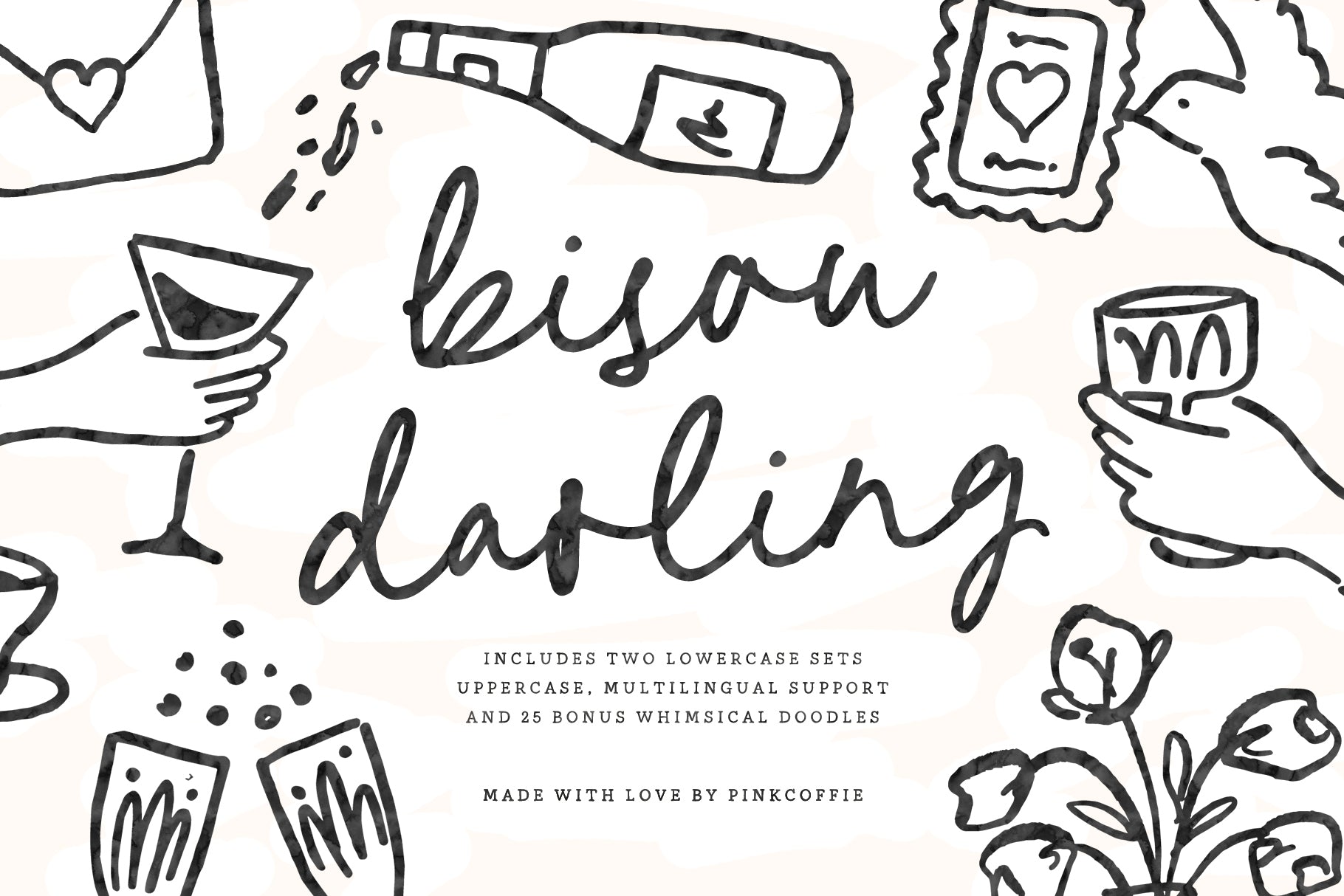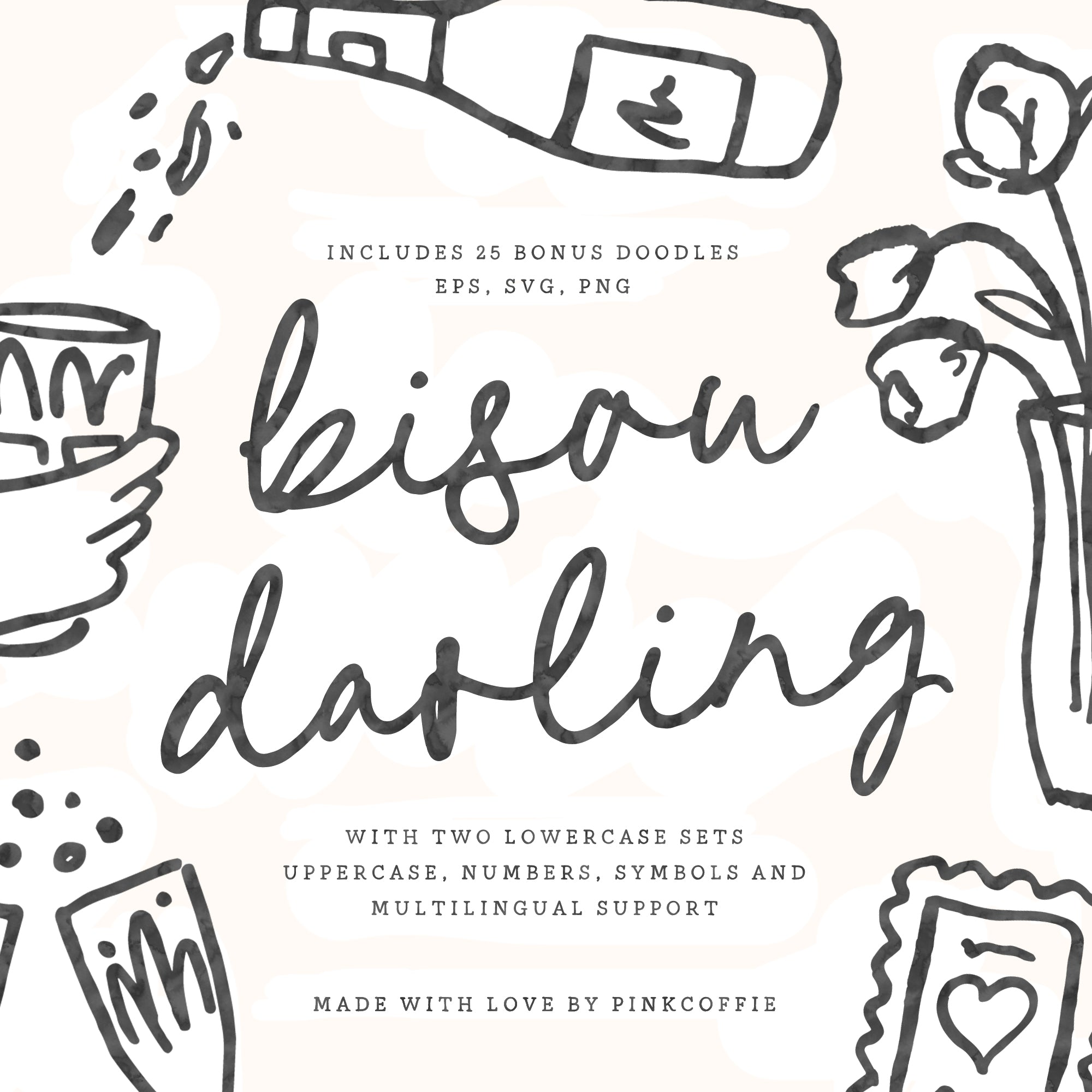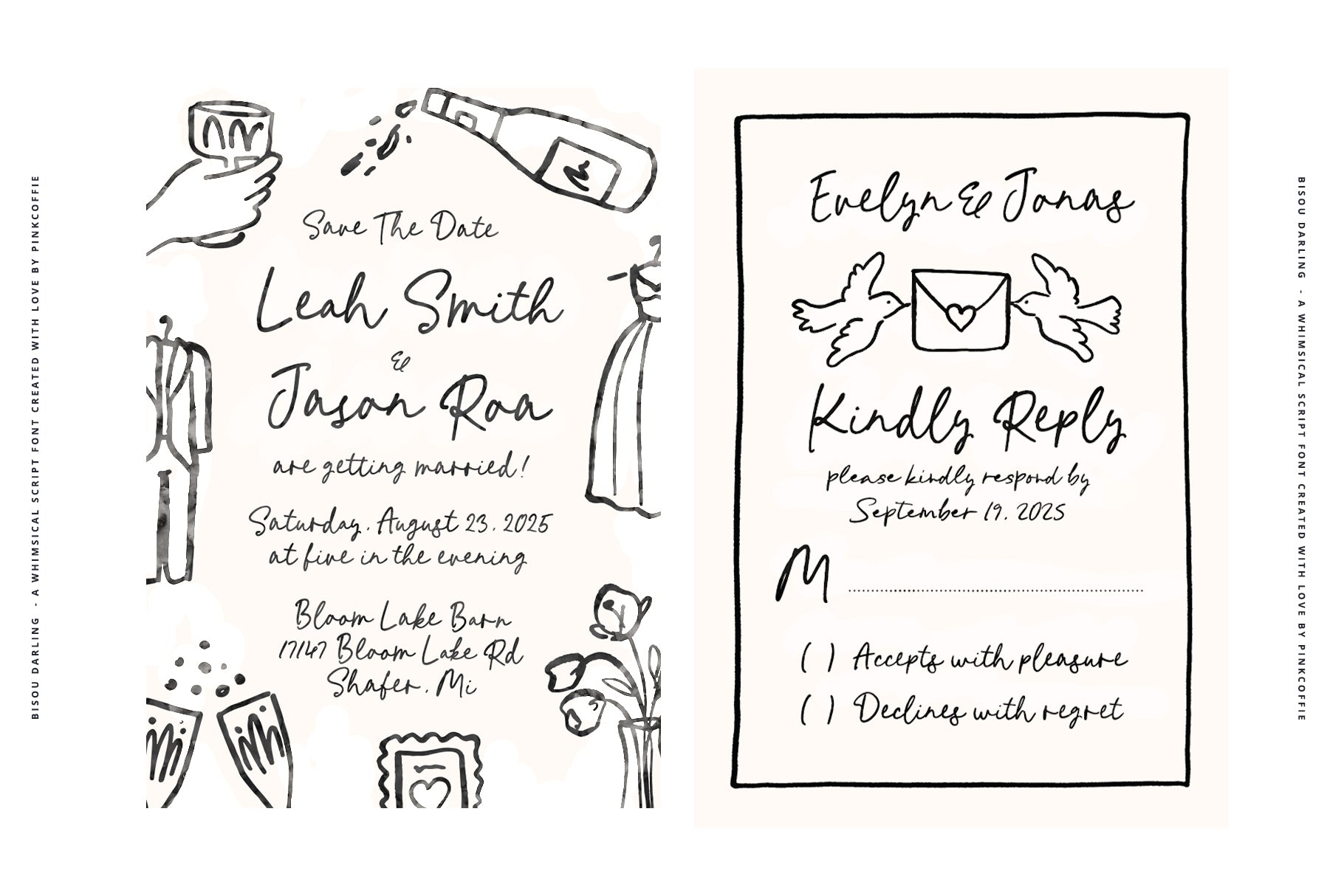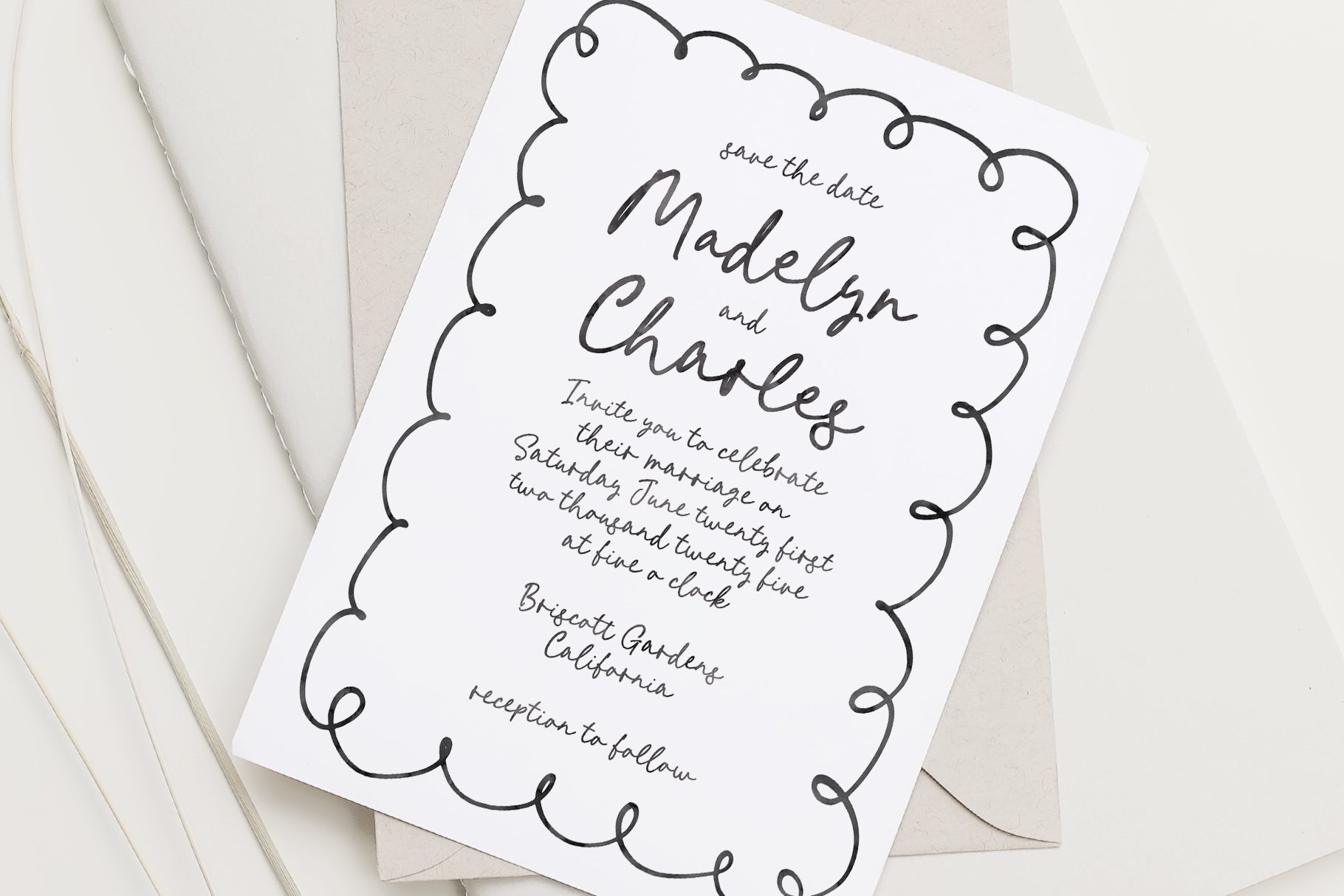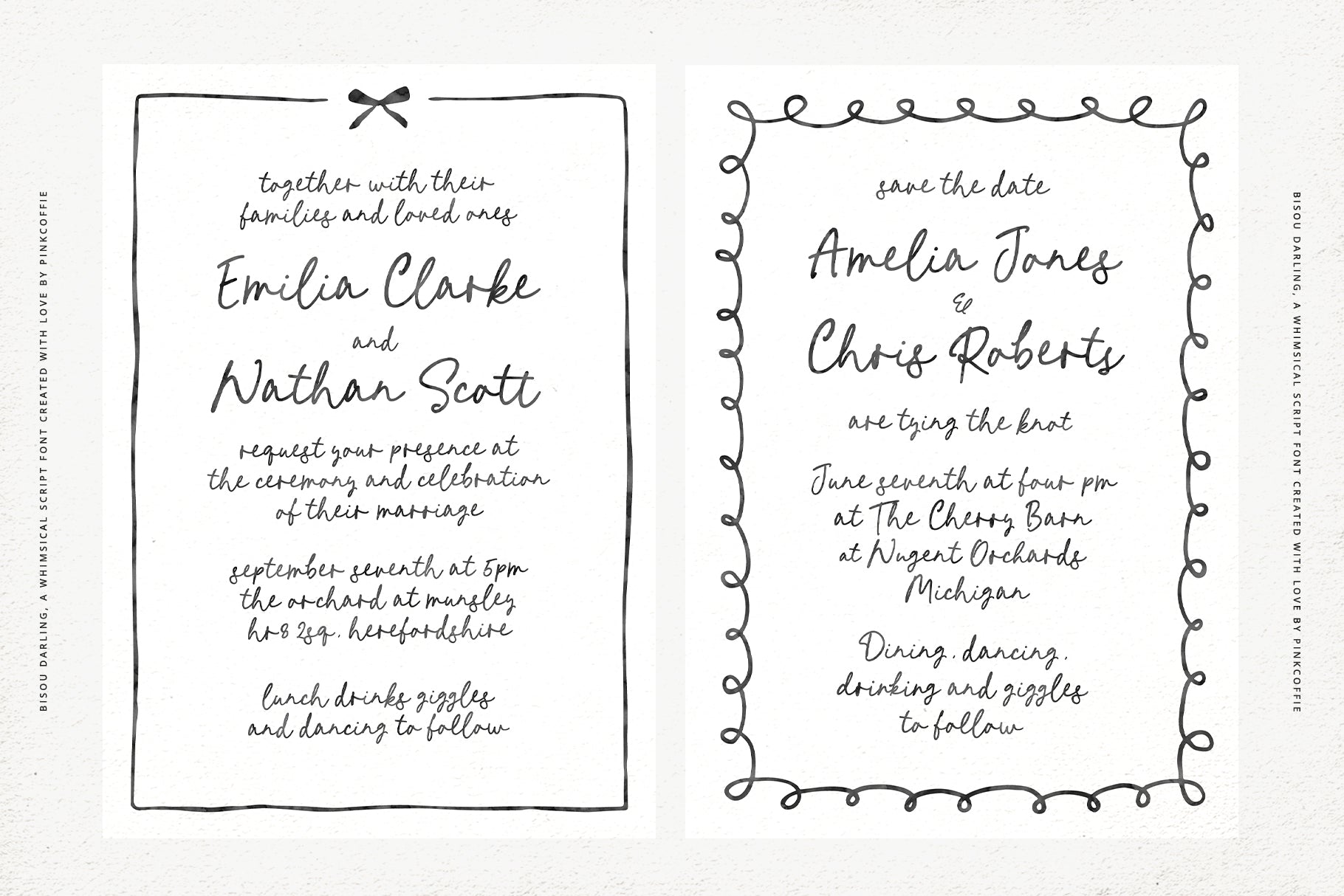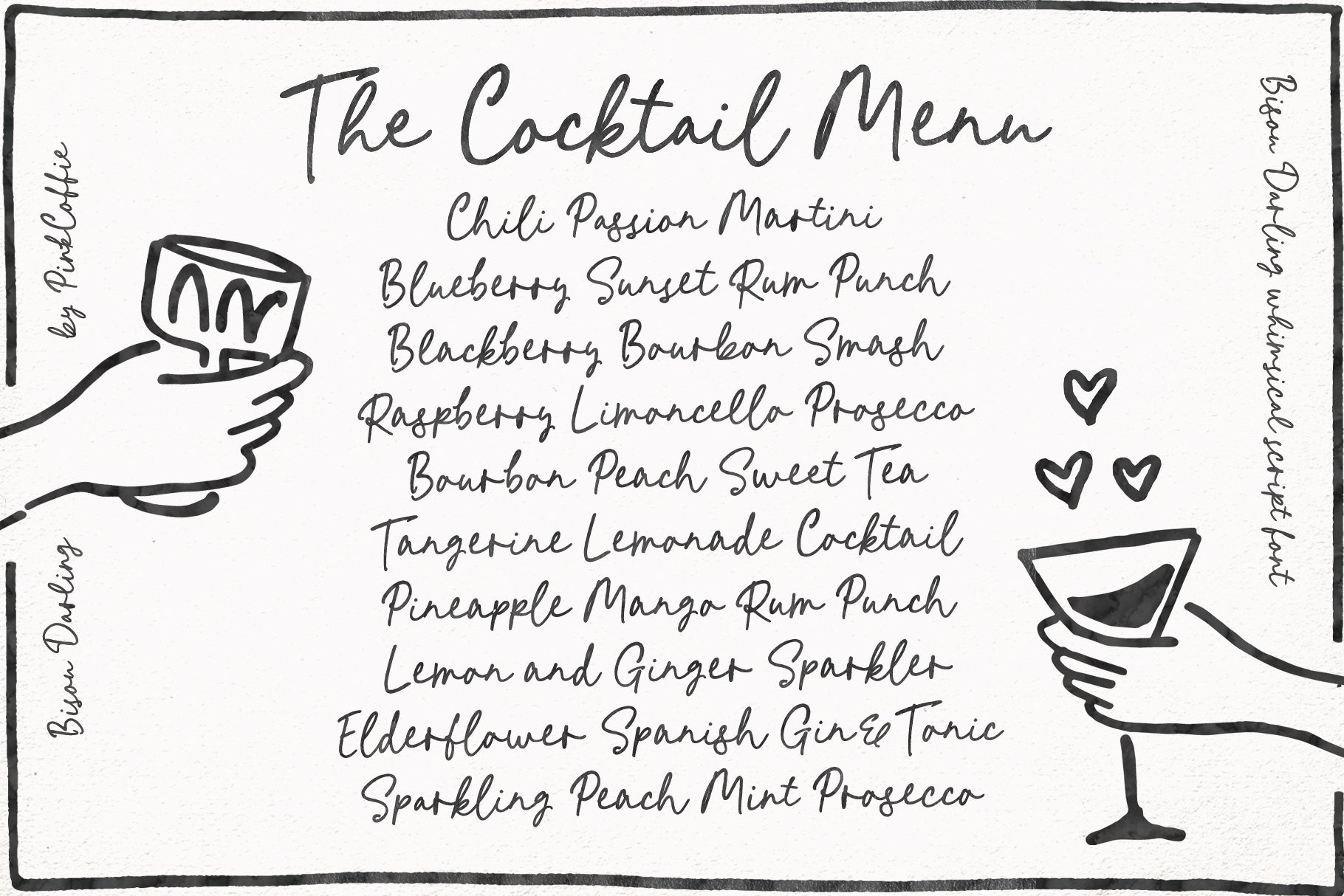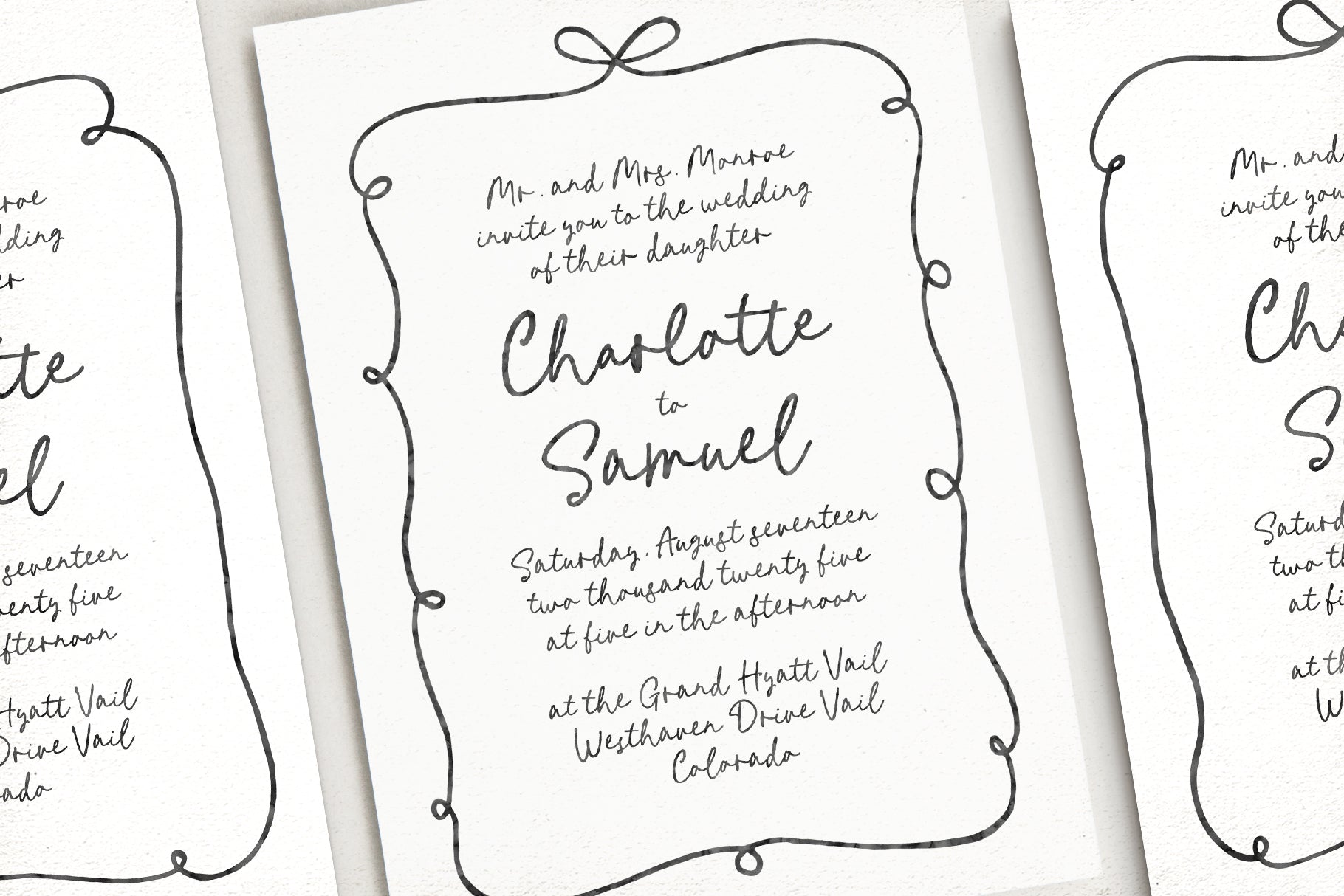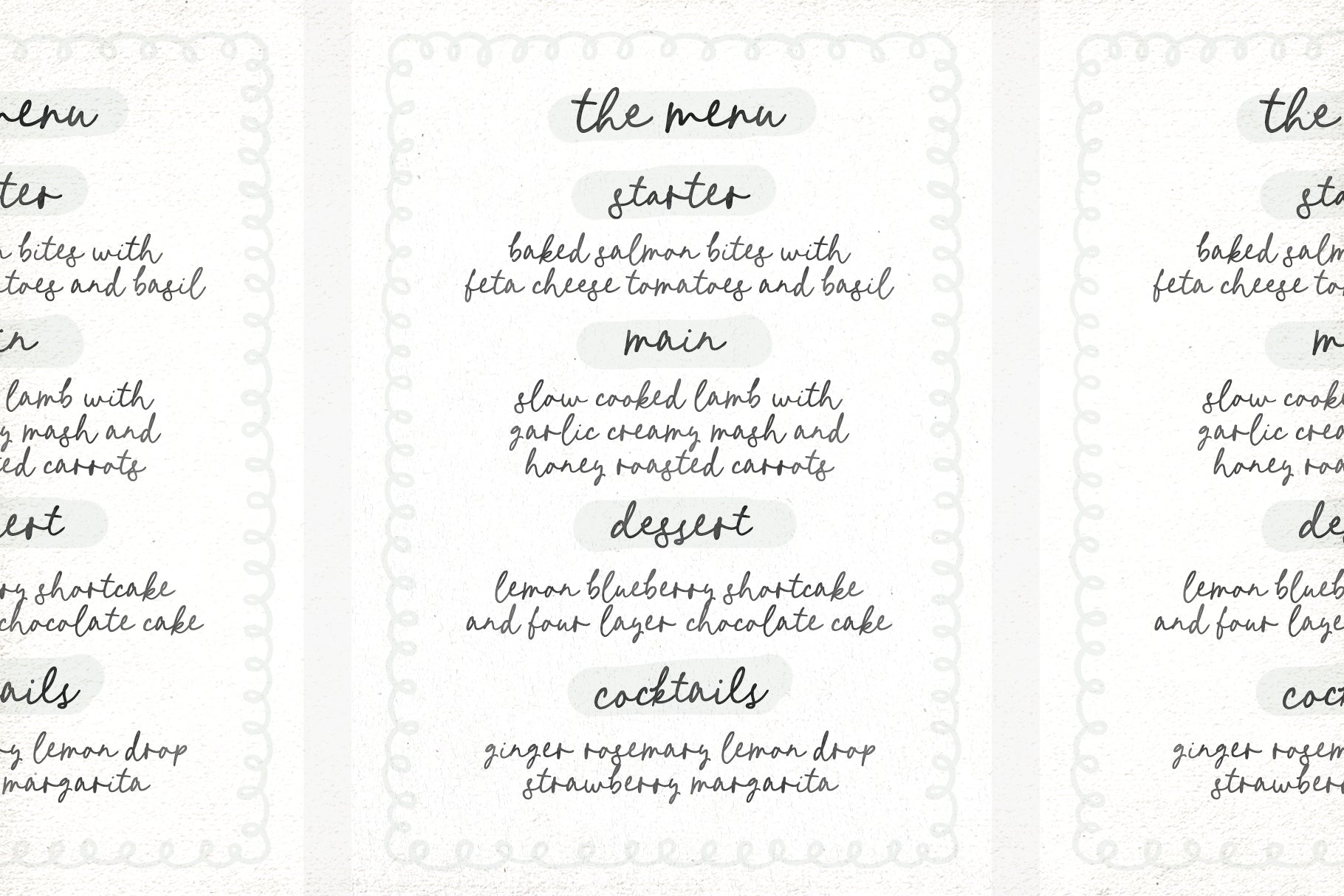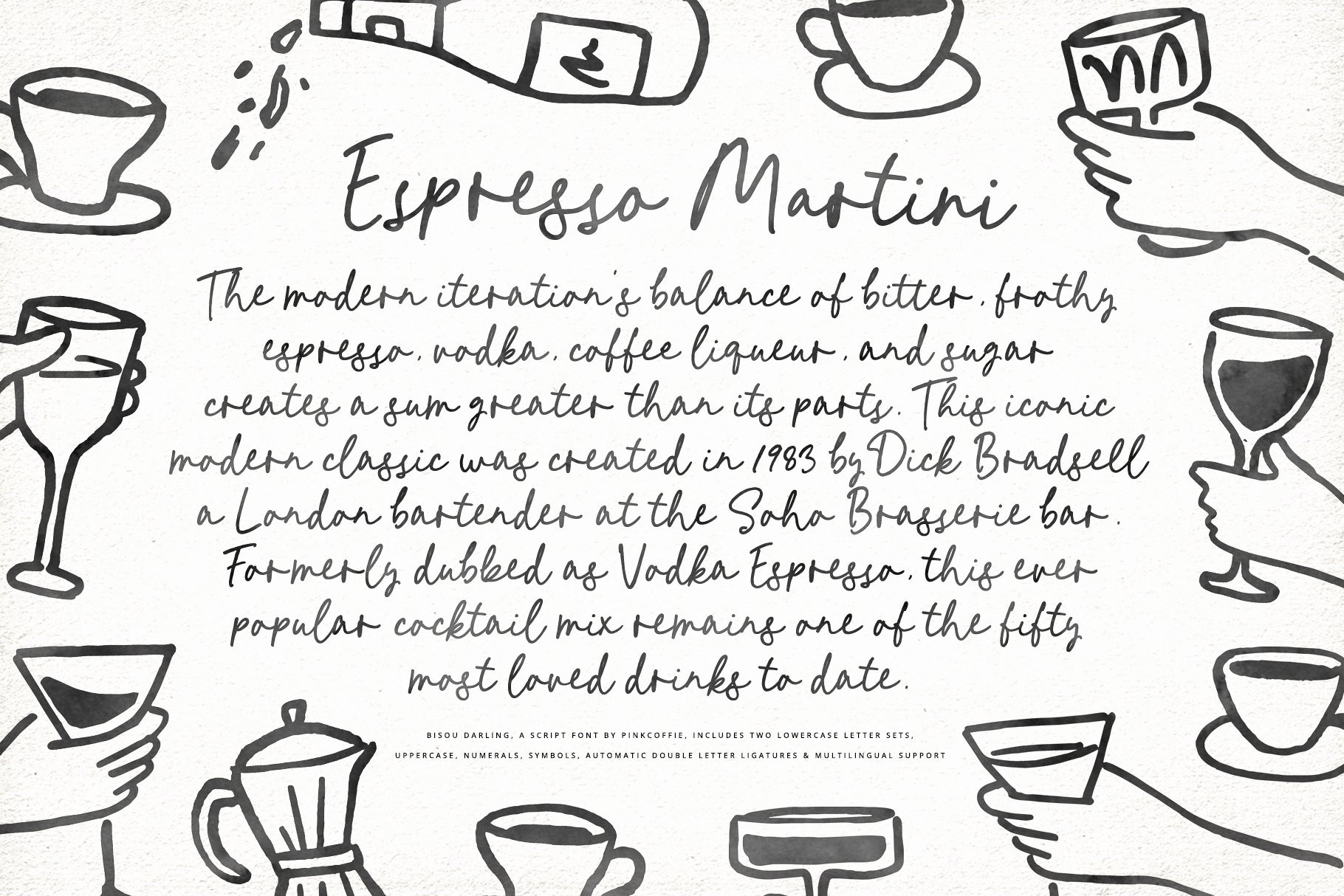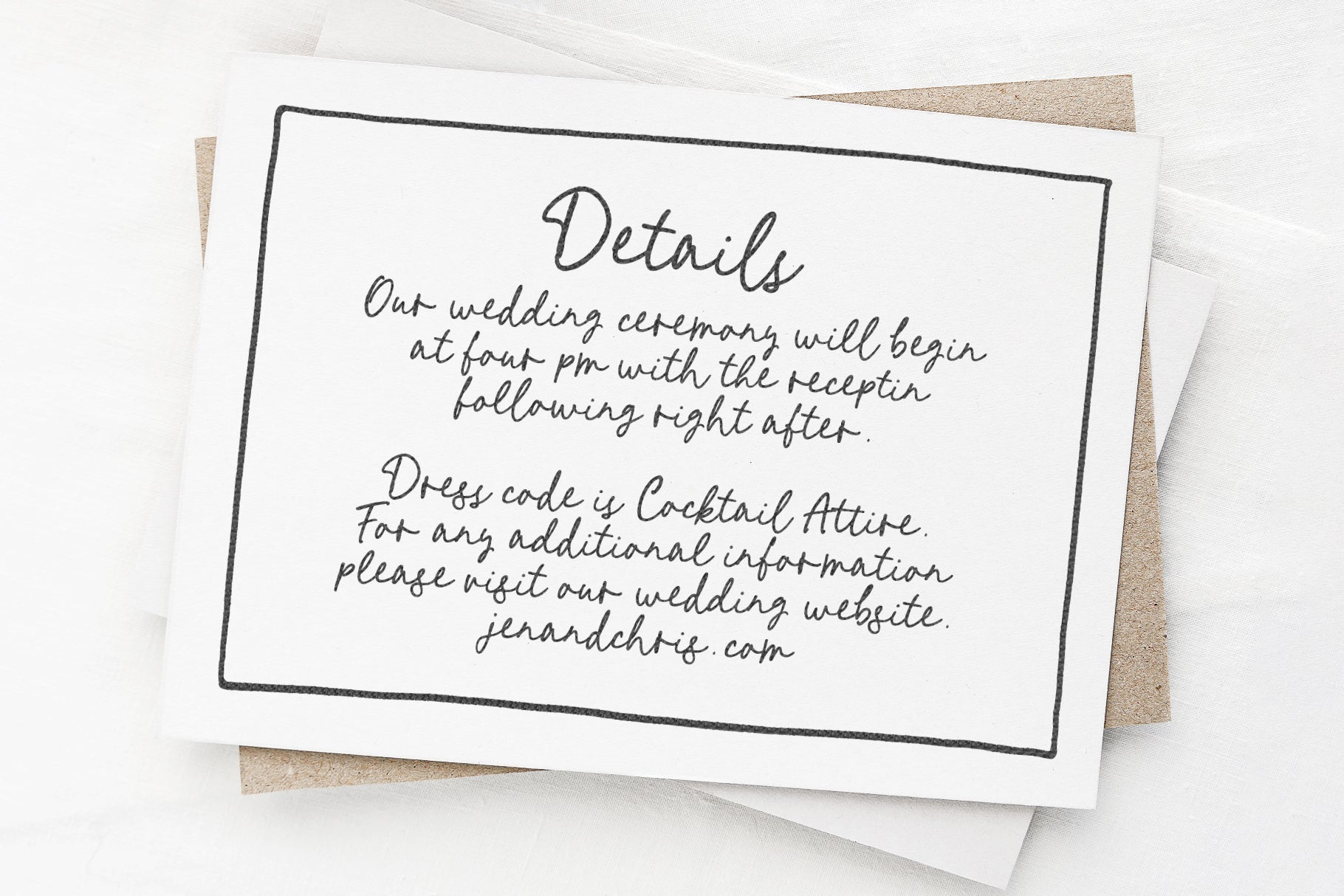
Bisou Darling
Say hello to Bisou Darling, a whimsical hand-lettered script font featuring two lowercase letter sets, double letter ligatures, uppercase, numbers, symbols, multilingual support, and 25 bonus hand drawn whimsical illustrations that were used to create the wedding stationery and menu designs featured in the previews. xx
- Bisou Darling - PUA encoded font featuring all standard characters, multilingual support and OpenType features such as lowercase letter alternates, and automatic double letter ligatures.
Multilingual Support:
The font includes multilingual support and the following multi-lingual characters: